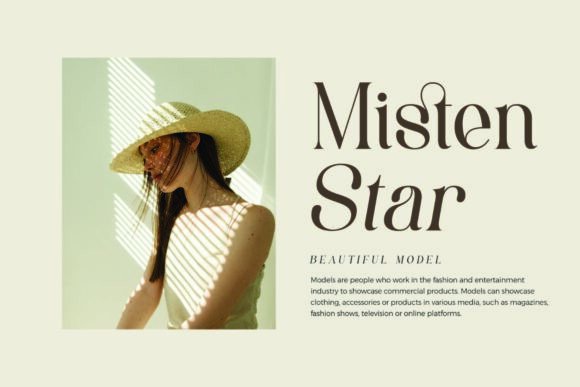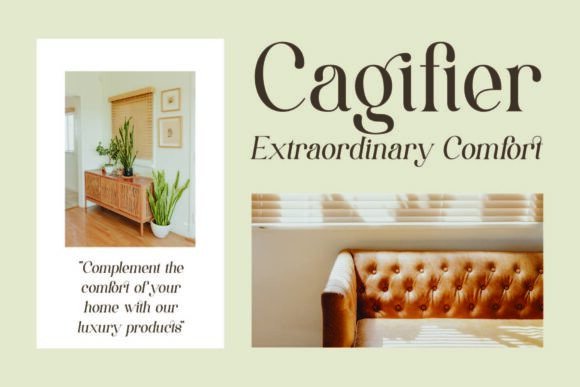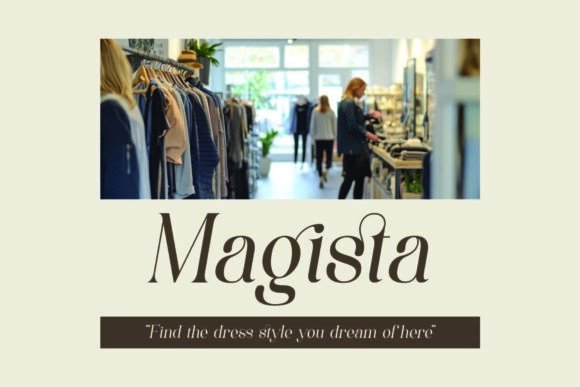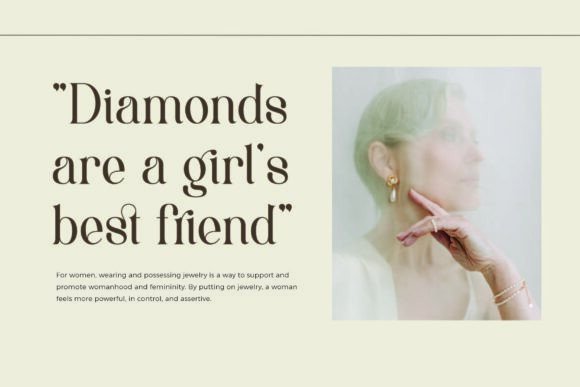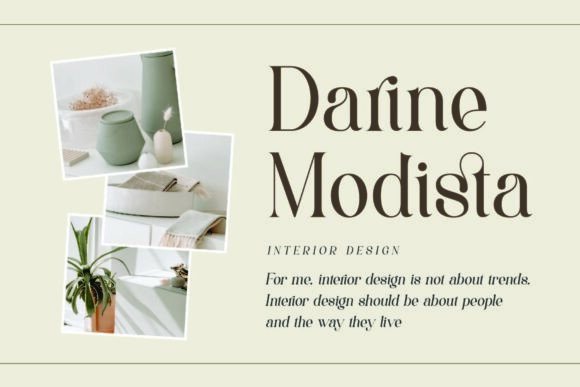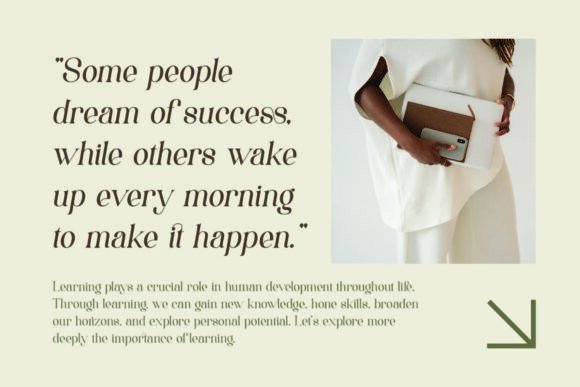
Introduction to Saitago Font
Saitago Stylish Ligature Typeface, inspired by the famous minimalist logo perfect for the purposes of designing templates, brochures, videos, advertising branding, logos and more.
Key Features of Saitago Font
Why Choose Saitago Font?
Saitago Font offers exceptional quality and versatility, making it a valuable addition to your design toolkit. Whether you’re creating for personal projects or commercial use, Saitago Font delivers professional results.